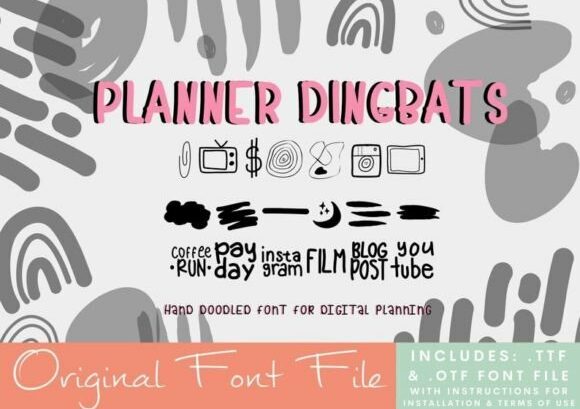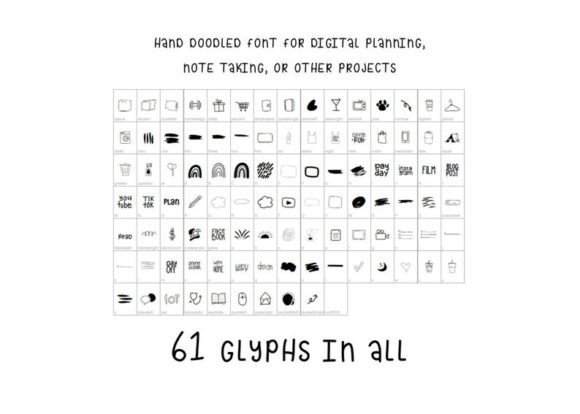
About Planner Dingbats Font
Planner Dingbats is a hand-doodled font designed for digital planning. Use this font on your computer, laptop, tablet, or phone for a fun doodled look. This would be cute as printed stickers for a physical planner as well.